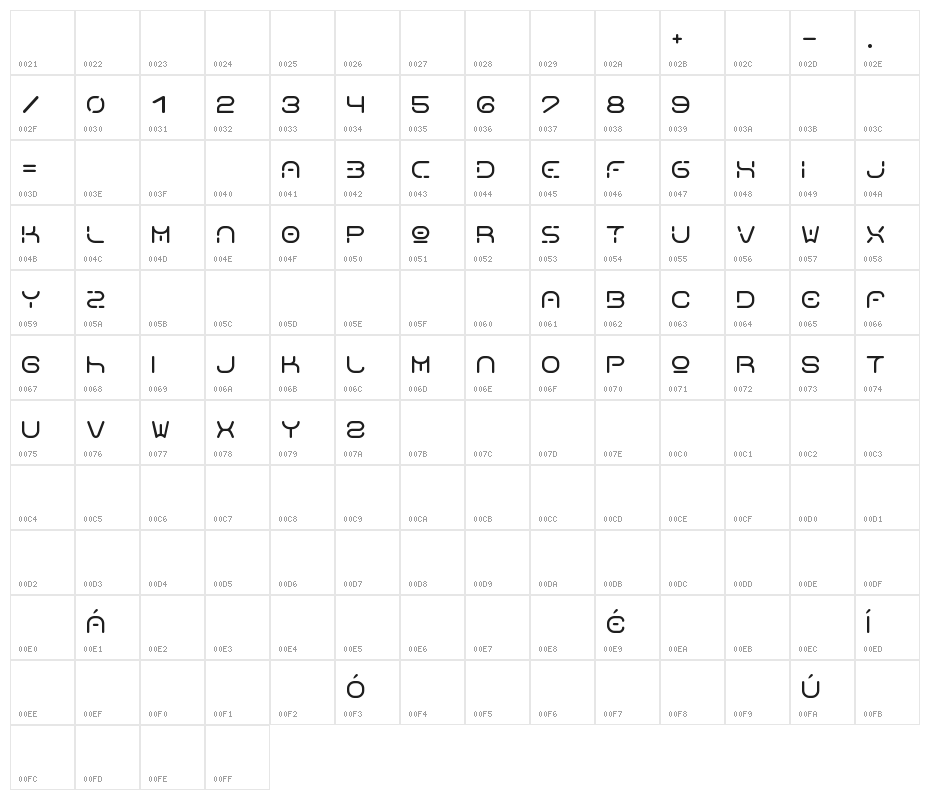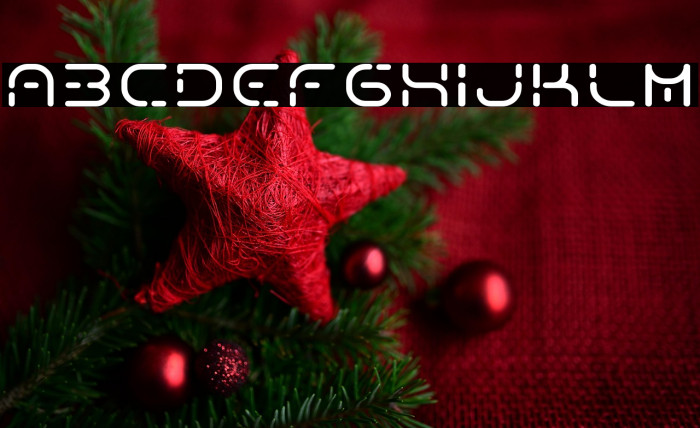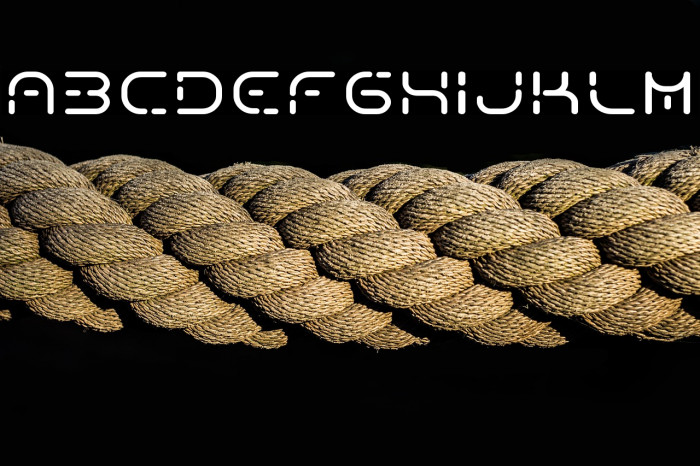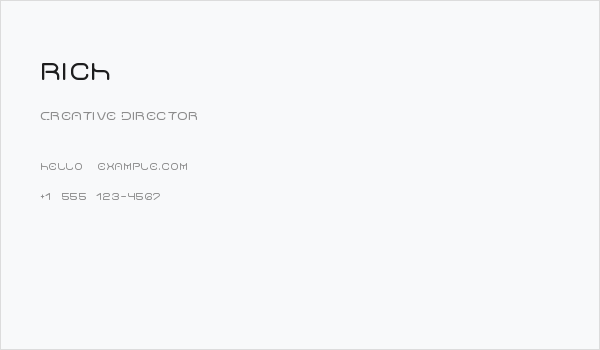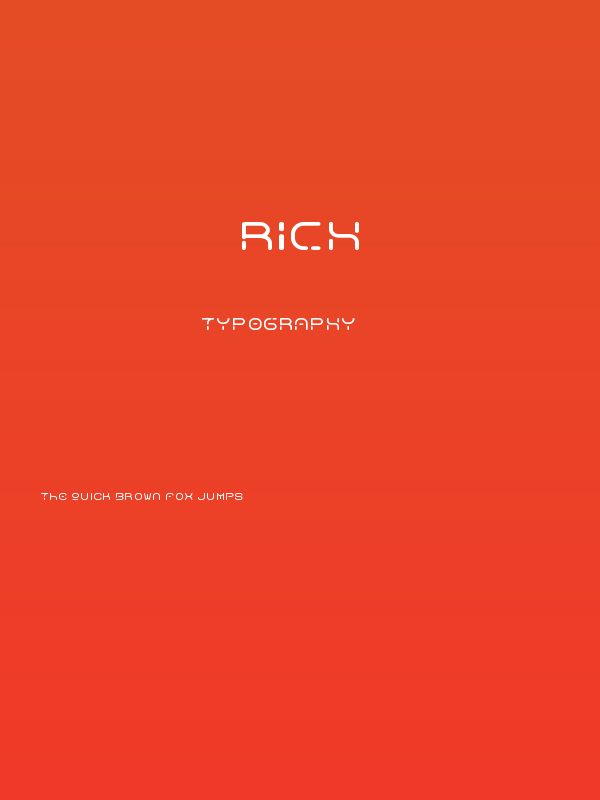
rich Font
rich Description
This font features a futuristic and geometric design with a distinct digital aesthetic. The characters are composed of bold, rounded strokes with consistent gaps, giving them a segmented appearance. The uppercase letters maintain a uniform height, while the lowercase letters are slightly smaller but follow the same stylistic approach. Numbers are clear and legible, matching the overall theme. The special characters are minimalistic, complementing the font's modern and tech-inspired look. This font is ideal for projects that require a contemporary and innovative feel.
| Use Case | Headlines, Logos, Digital interfaces |
| Proposed Projects | Ideal for technology branding, digital interfaces, sci-fi themed designs, and modern advertising. |